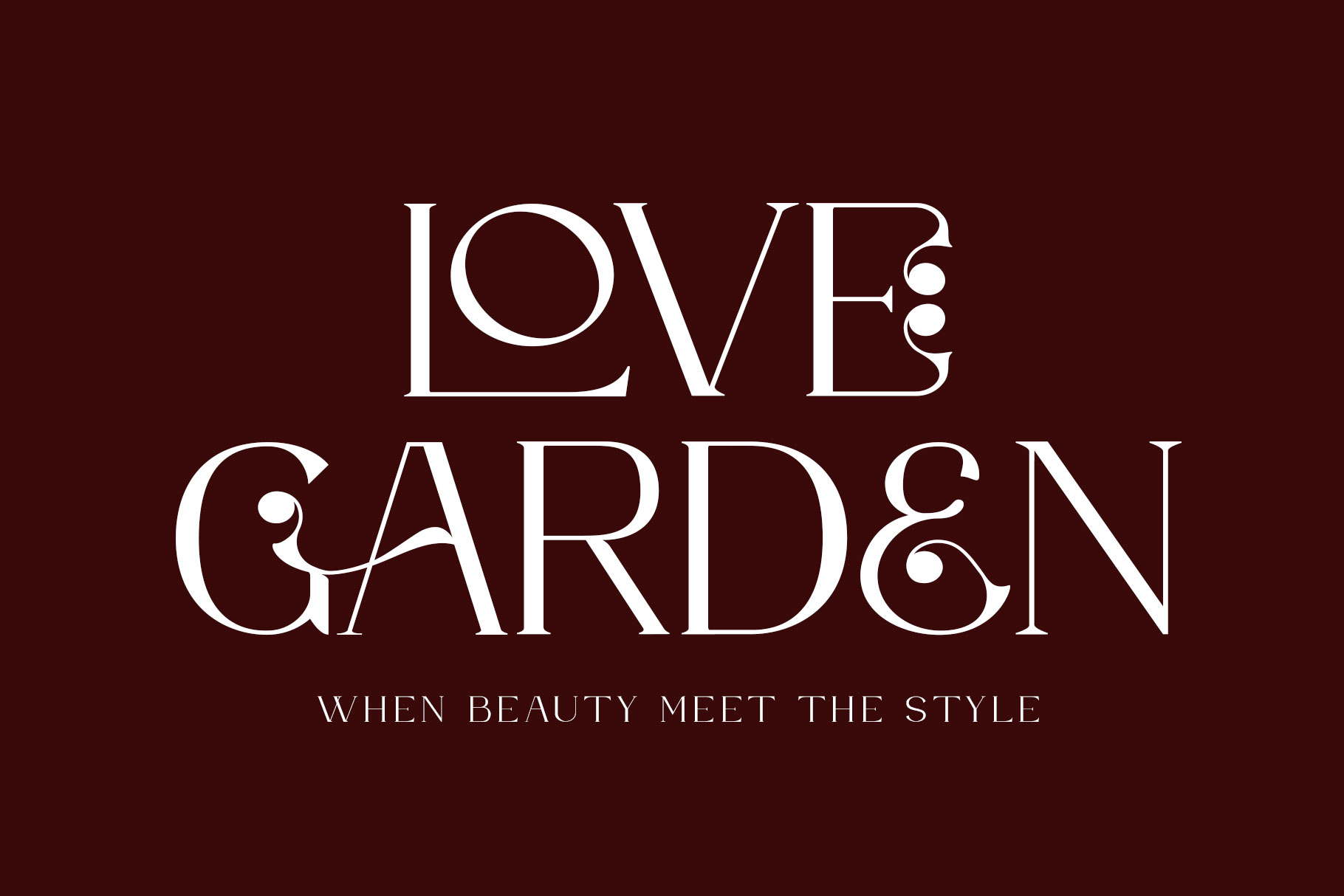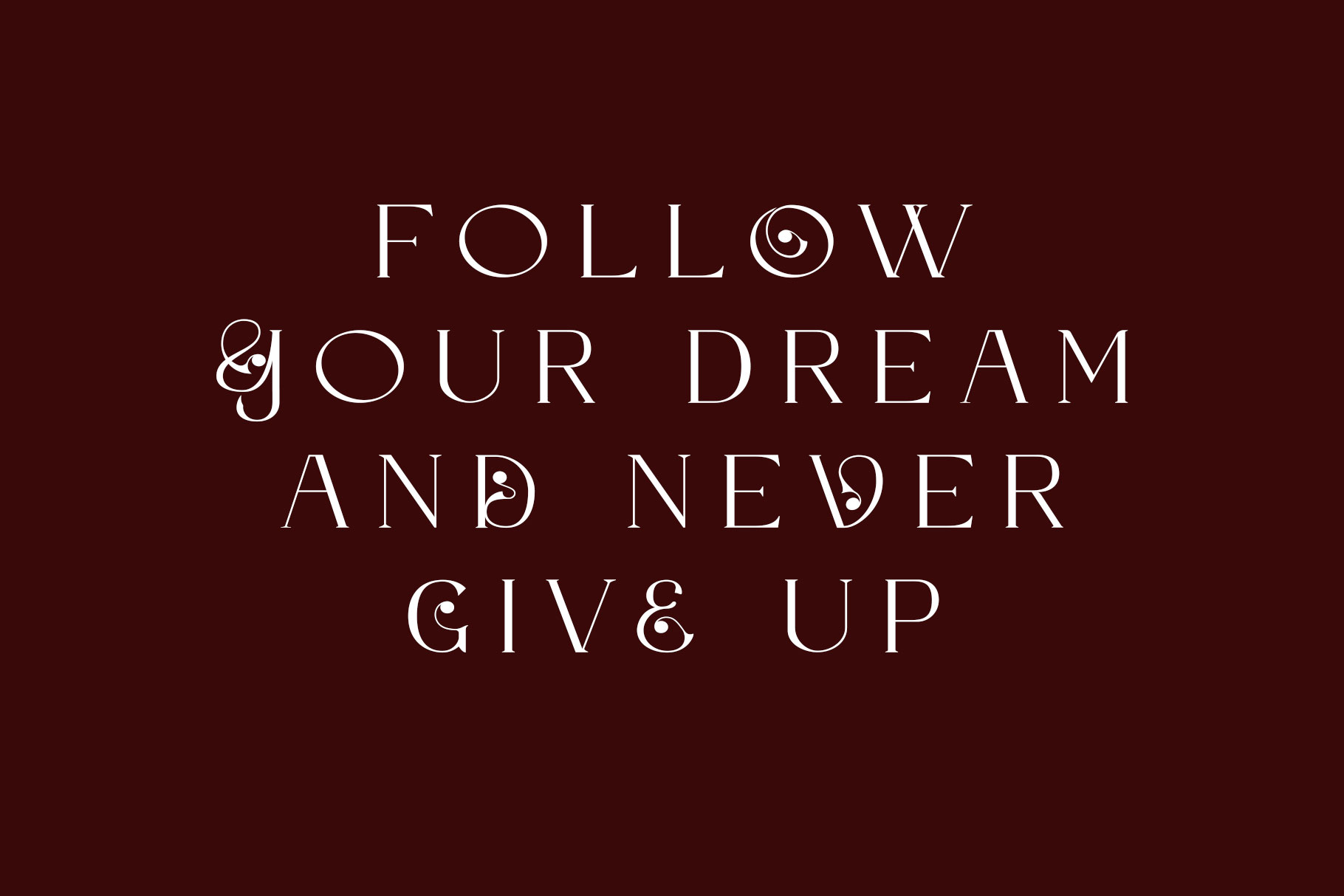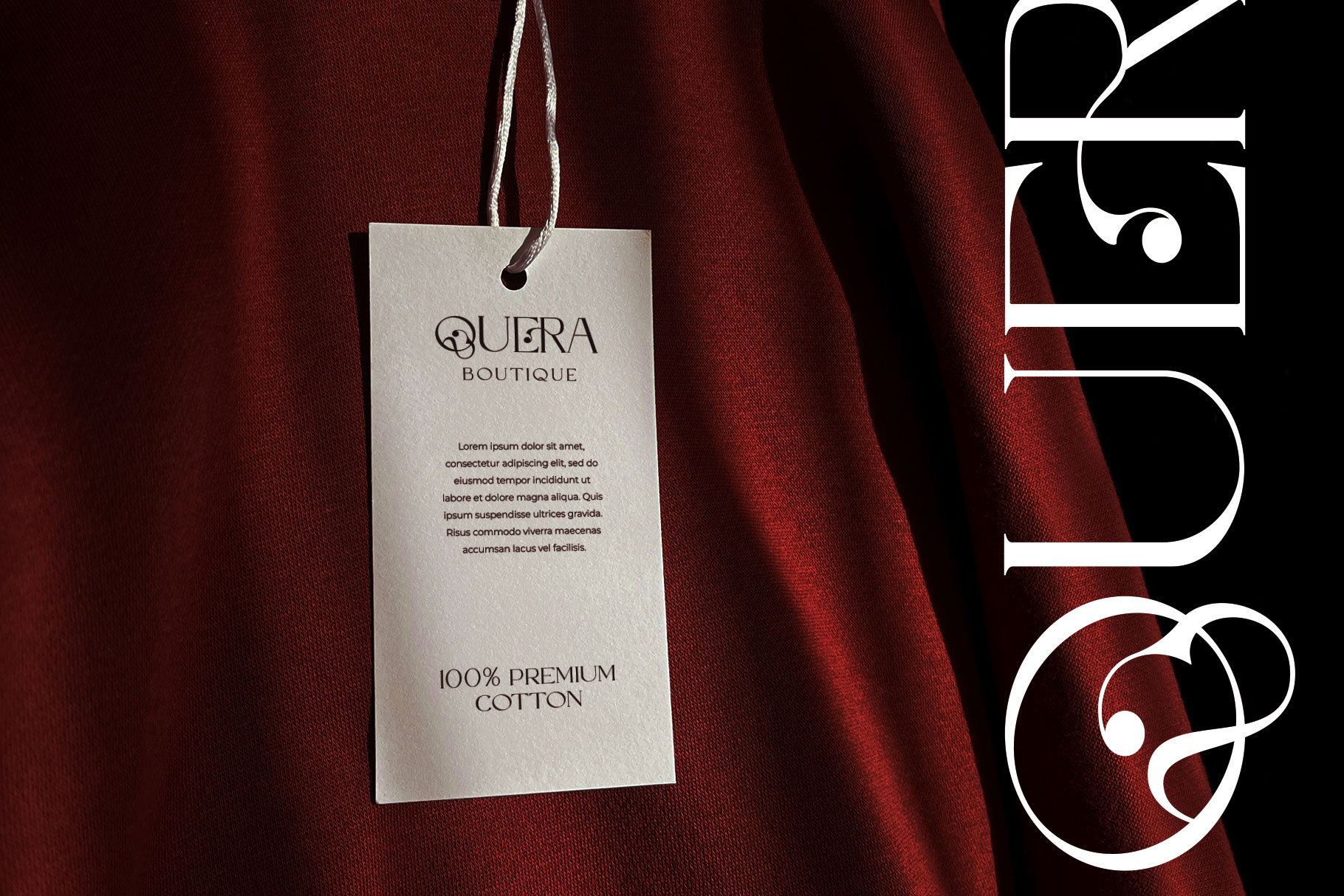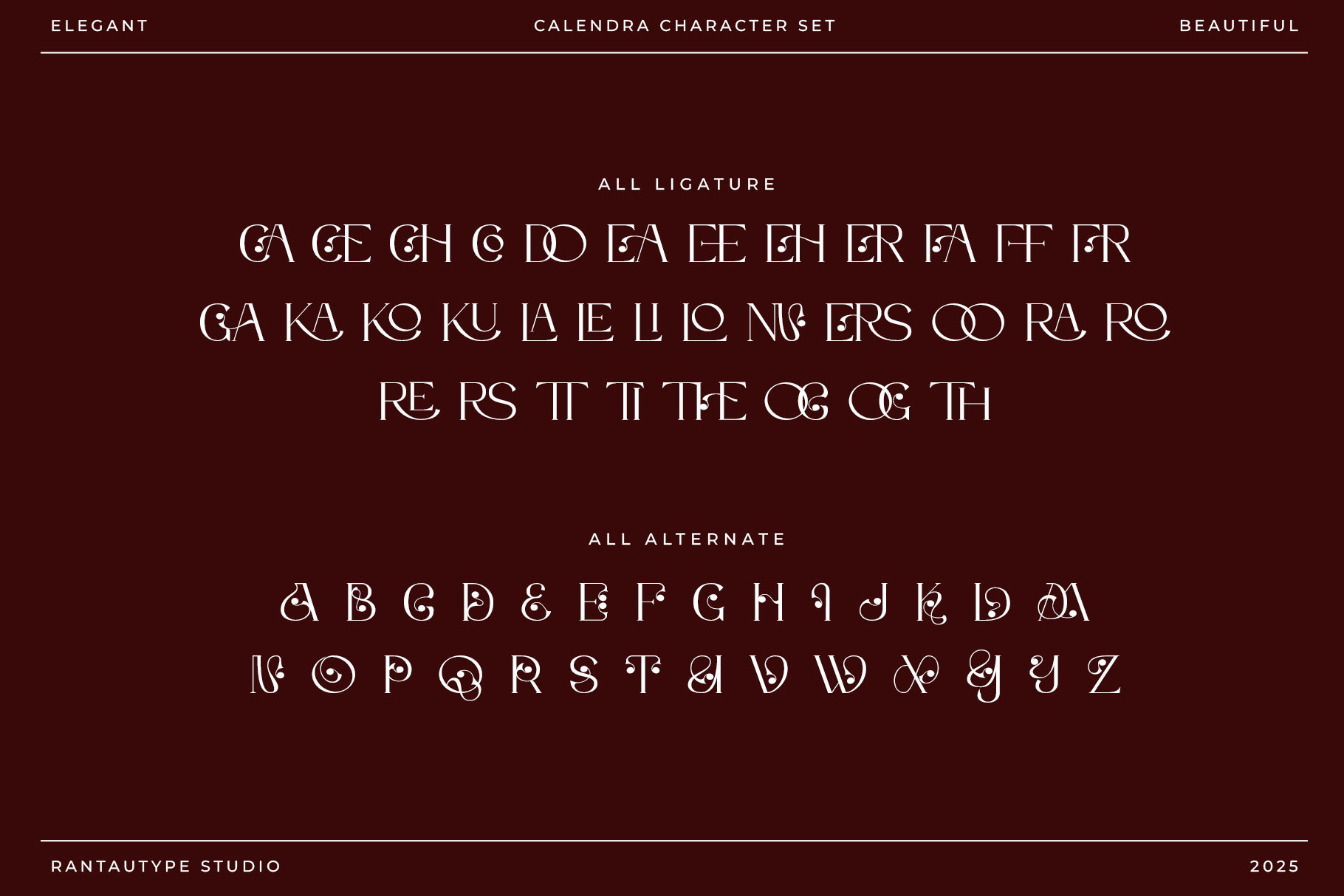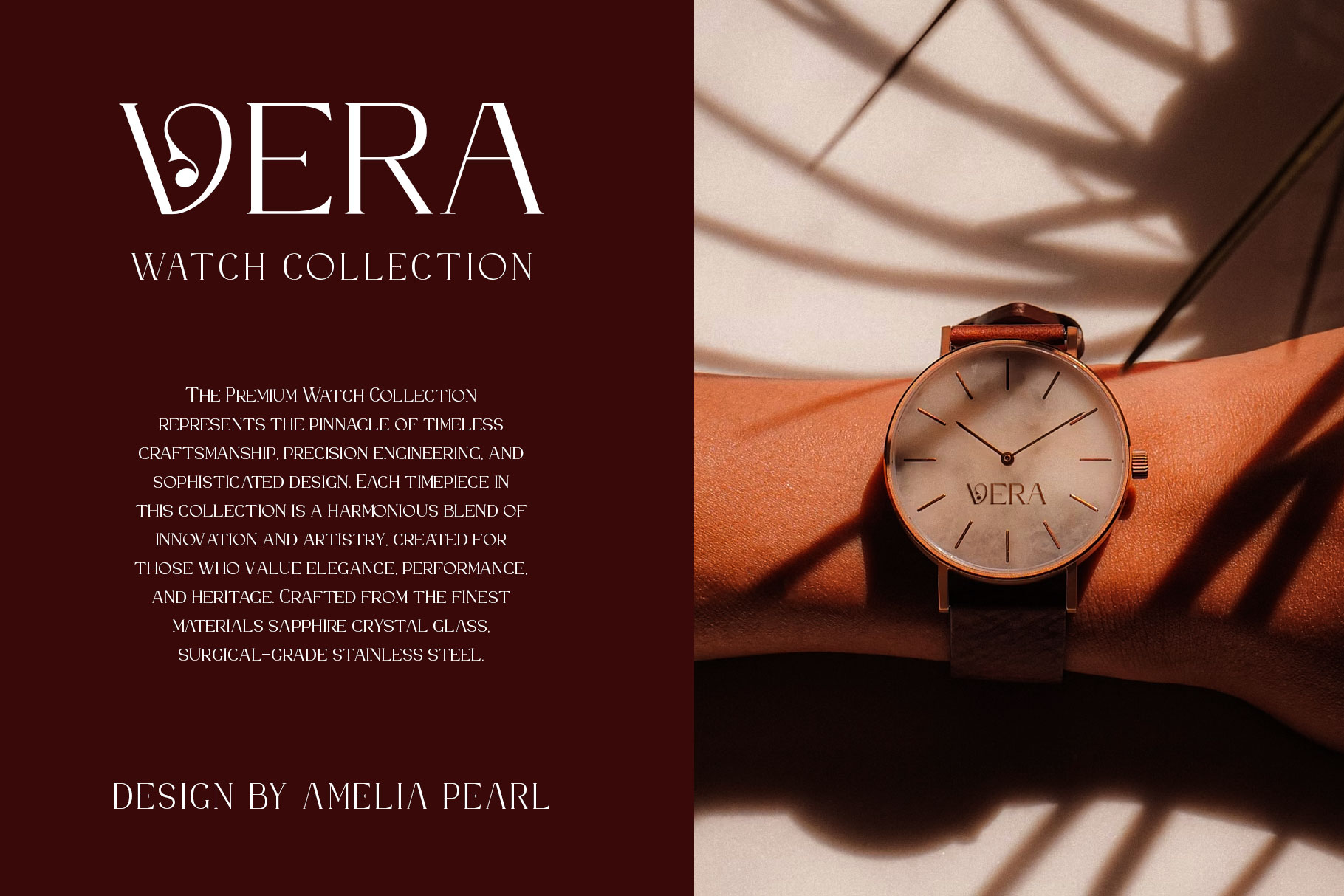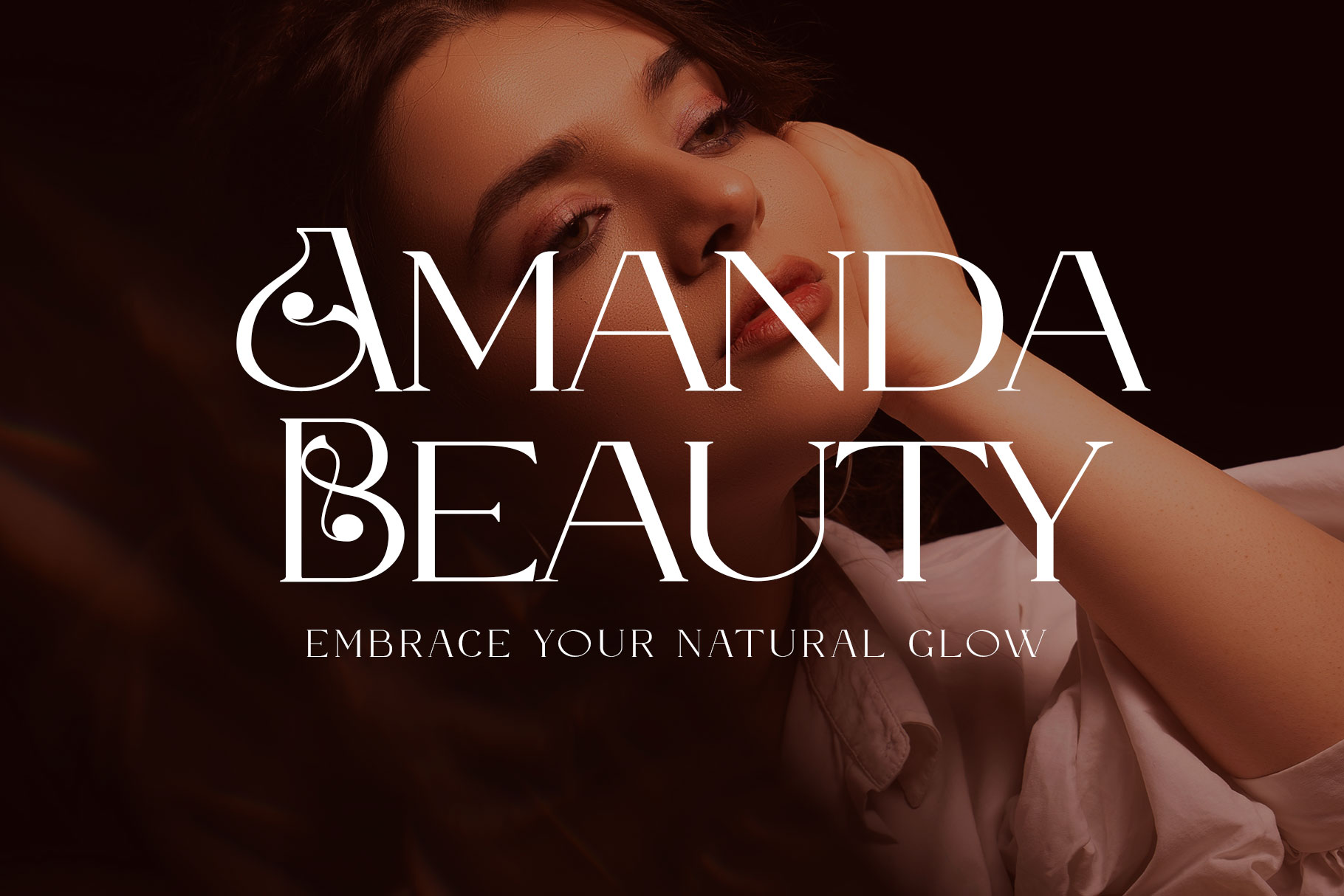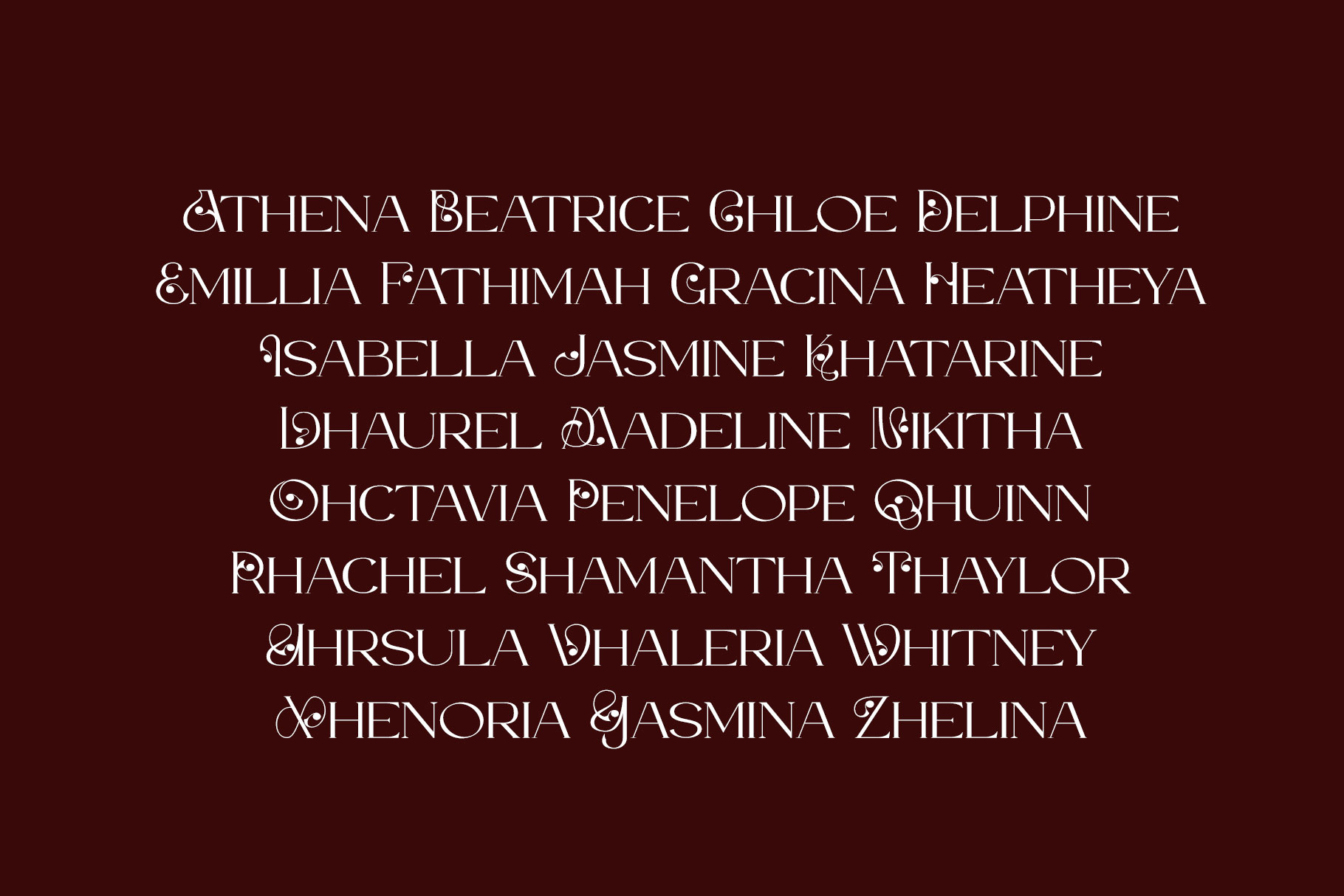
Calendra
Calendra is beautiful serif font with Elegant Decorative style captures the essence of sophistication and timeless artistry. Designed with refined curves and graceful strokes, this typeface exudes charm and luxury in every letter. Perfectly balanced proportions and detailed ornamentation make it a standout choice for projects that demand elegance and prestige.
Calendra is a perfectly choice for any creative endeavor, creating, modern, lifestyle design such as logotype, title, cover, branding, invitations, wedding designs, display and magazine, social media posts, advertisements, printed quotes, product packaging, corporate brand, product designs, labels, photography, watermarks, special events and any other project with elegant touch.
Calendra Beautiful Display Serif Font